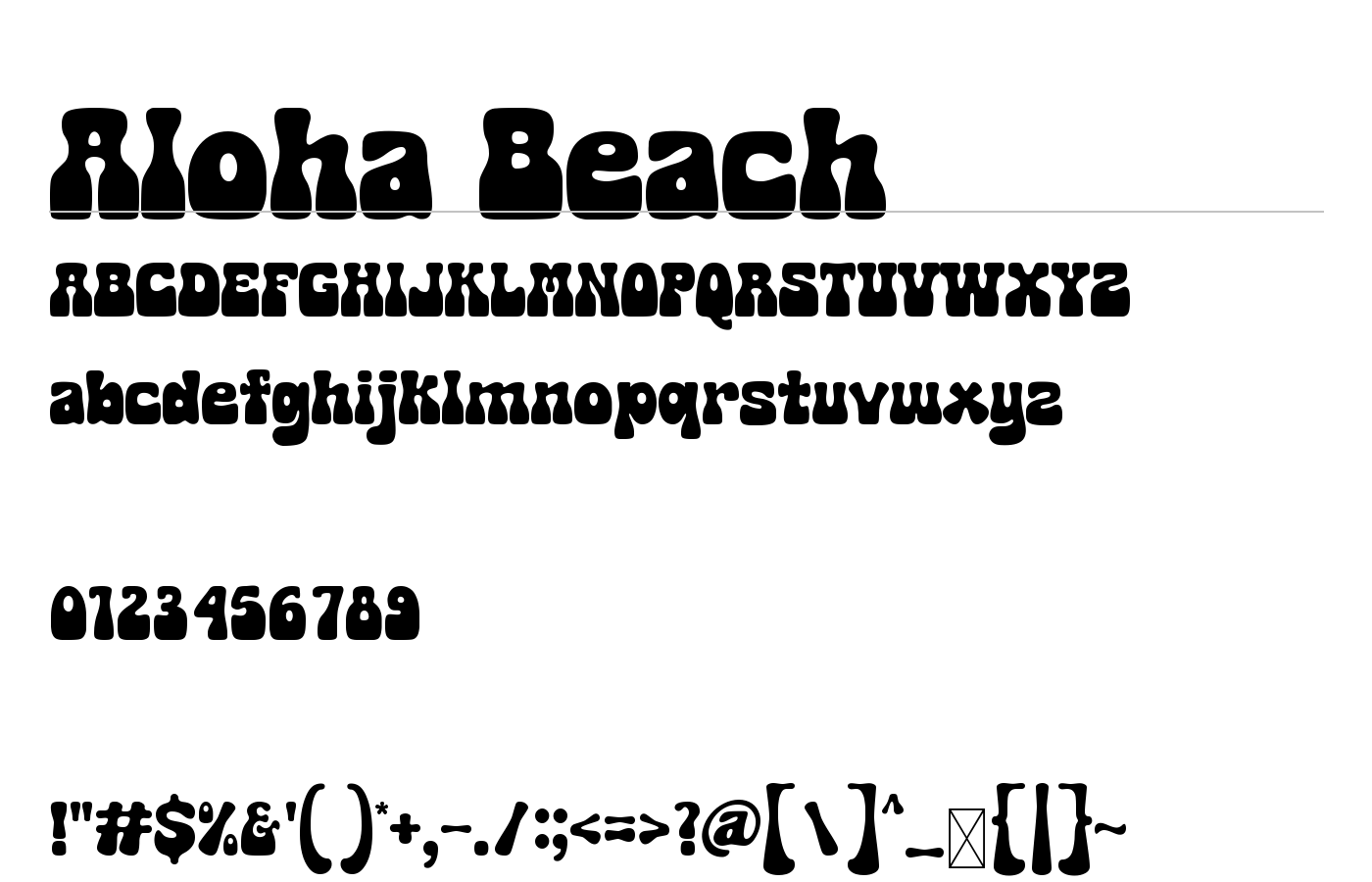
Aloha Beach is a playful, chunky display font featuring rounded, bubbly letterforms with a strong retro 1970s vibe. Its bold weight and slightly condensed shapes make it ideal for eye-catching headlines and fun, casual branding that evokes a laid-back, beachy atmosphere. Perfect for packaging, posters, and lifestyle brands, this font brings a cheerful and nostalgic personality to any design.
Aloha Beach Font
About Aloha Beach Font
| Font family | Aloha Beach Font |
| Designer | Burhan Afif |